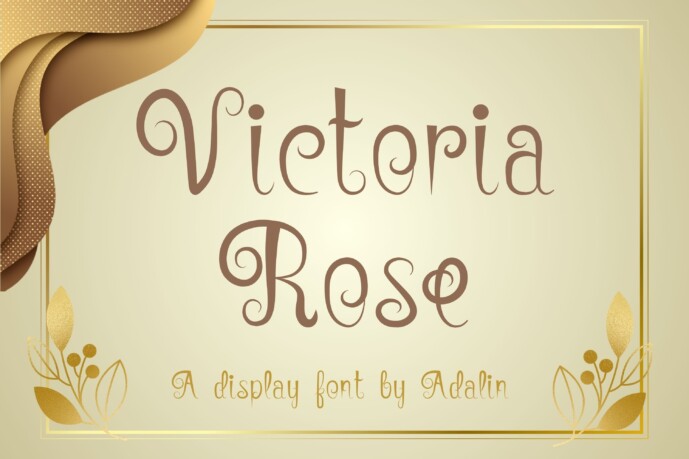
Victoria Rose Font
Designer: Adalin Digital
Victoria Rose font is a cute decorative font that is ideal for crafting and perfect for designs that need a playful, cheery accent. Victoria Rose font suits gift tags, book covers, posters, packaging, merchandise, logotypes, and many more!